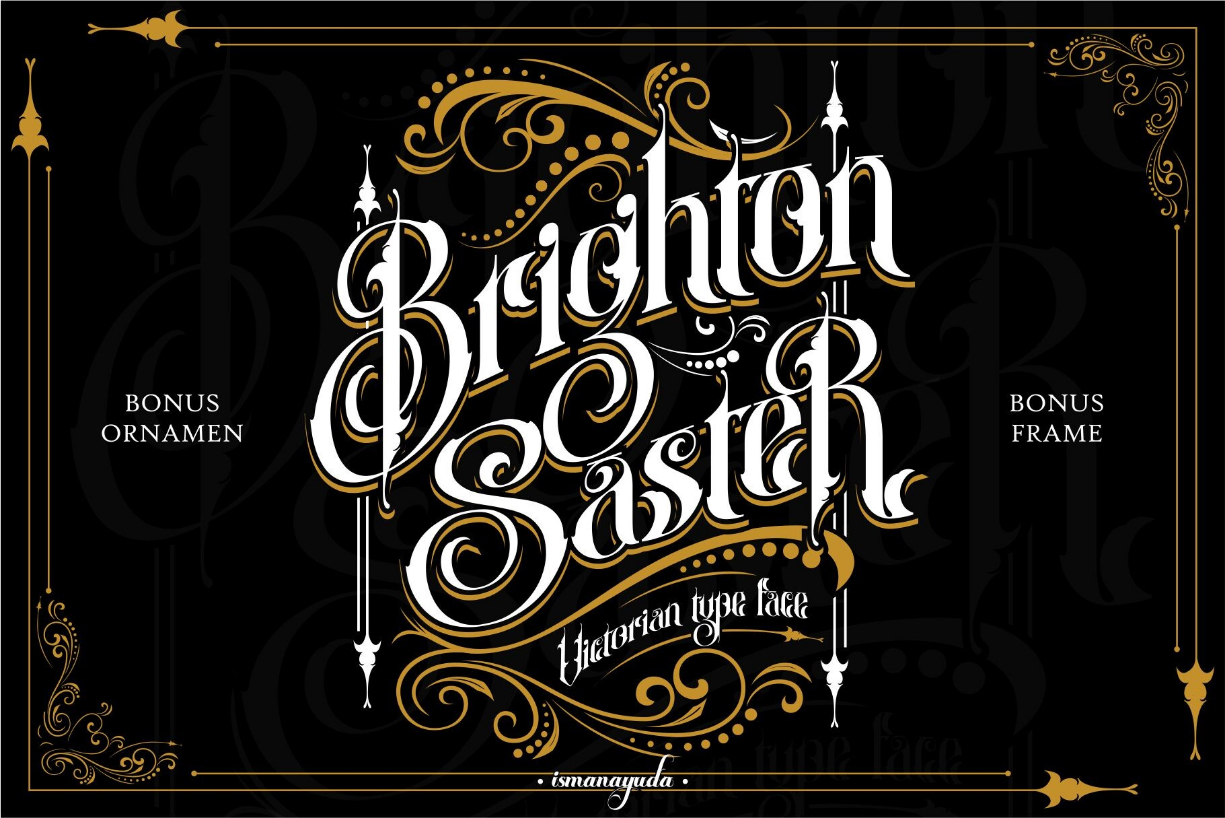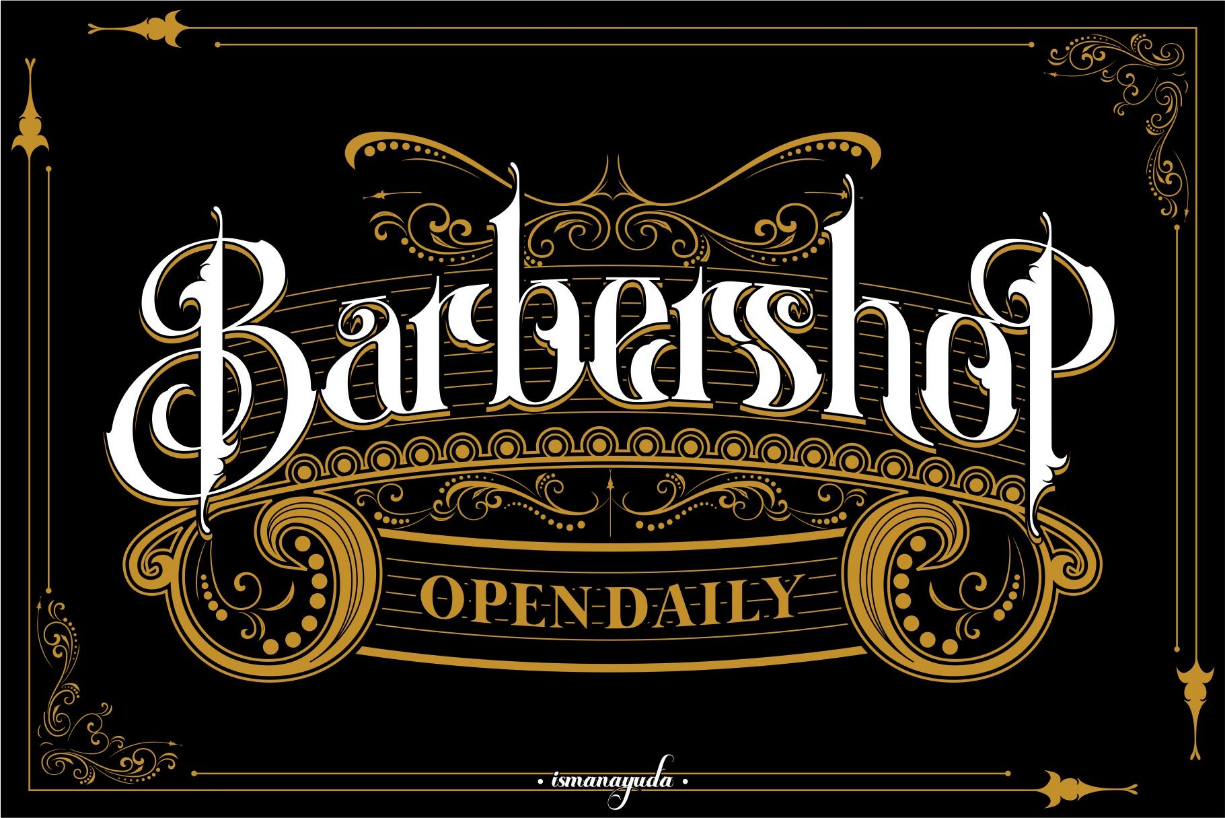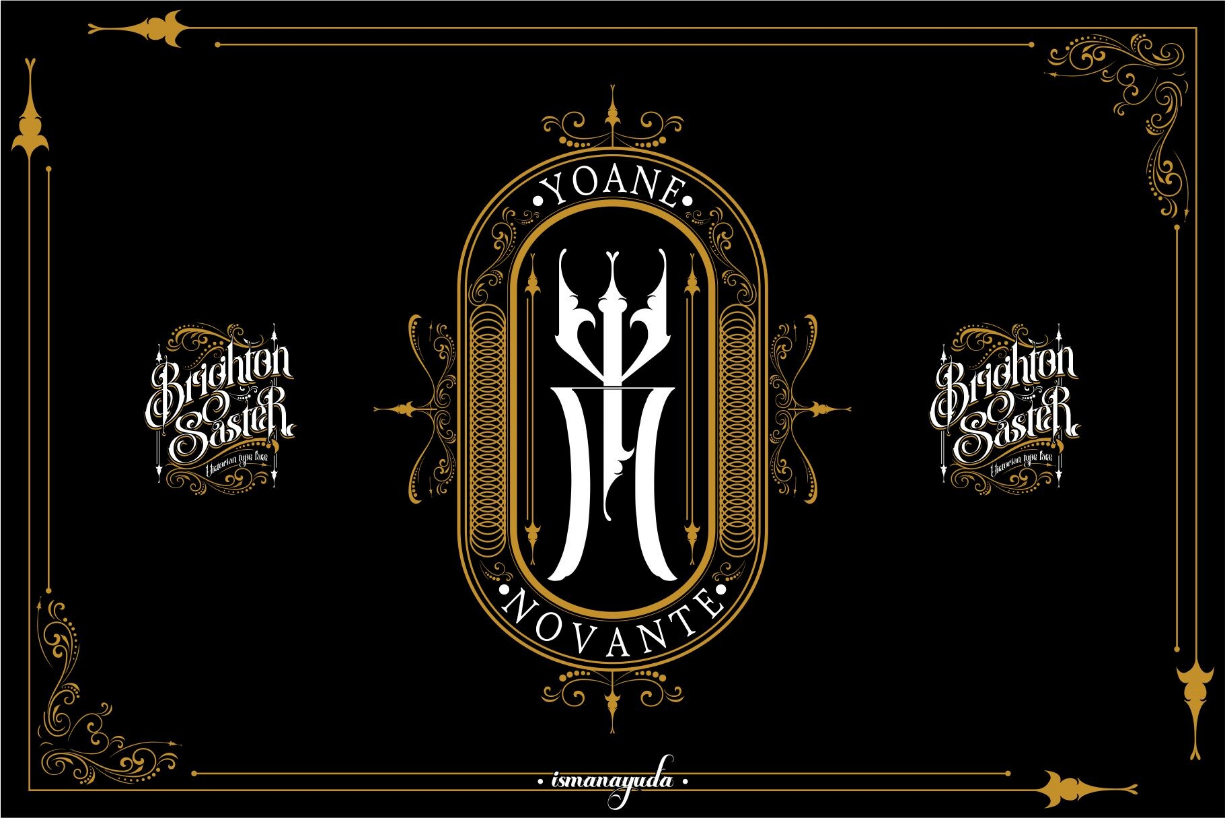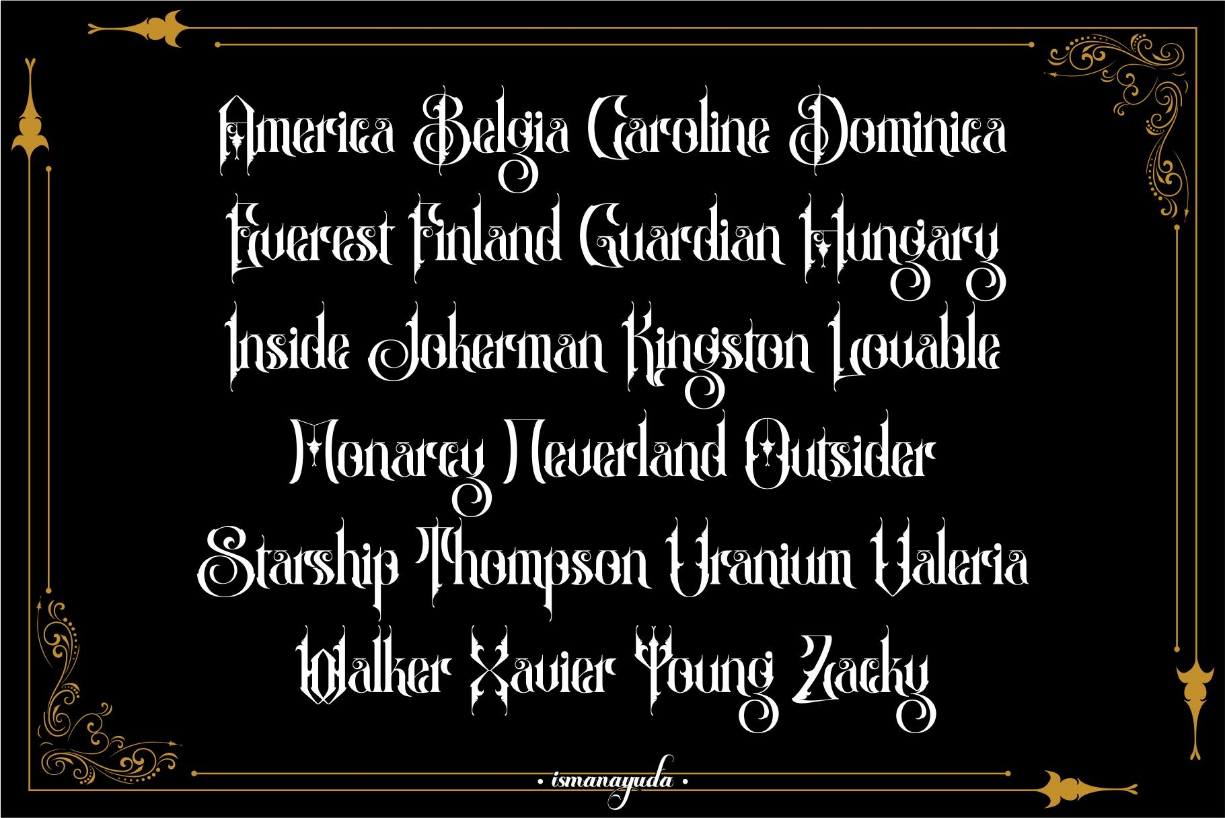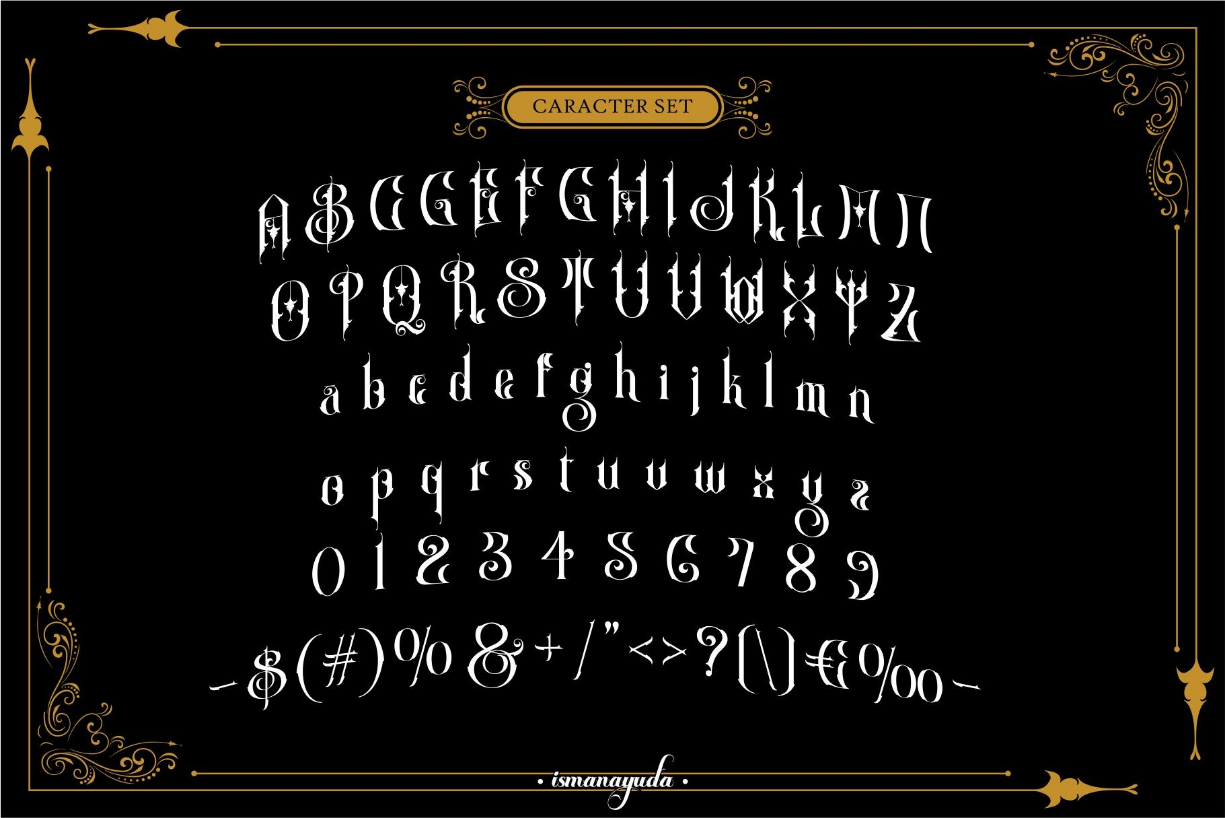
About Brighton Saster Font
Brighton Saster is a unique work of art in the form of a font in the Old Victorian style.
This font has many functions, it can be used for t-shirt mock-ups or cafe front displays, tattoo studios as well as tattoo fonts.
Inside there are lots of bonuses in the form of vector ornaments as well as vector frames.